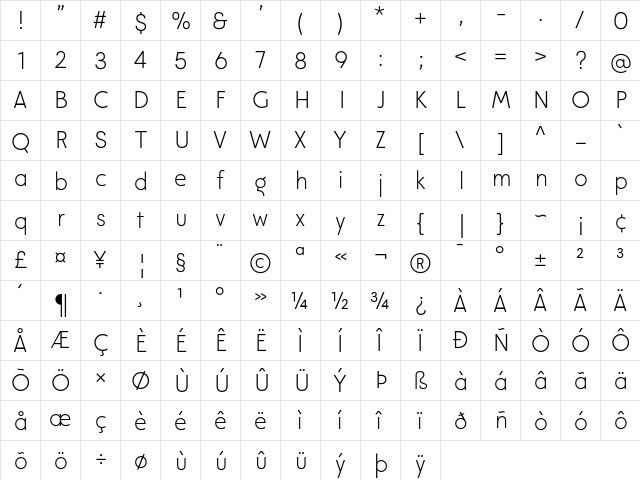
Modeco Trial ExtLt Regular
| Designer | Eko Bimantara |
Design Context for Modeco Trial ExtLt Typeface
Modeco Trial ExtLt offers clean, dependable letterforms without strong stylistic allegiance, making it a practical choice for designers who need flexibility.
Pro Tip: Use Modeco Trial ExtLt in both headline and body roles to test its range before committing to a single application.